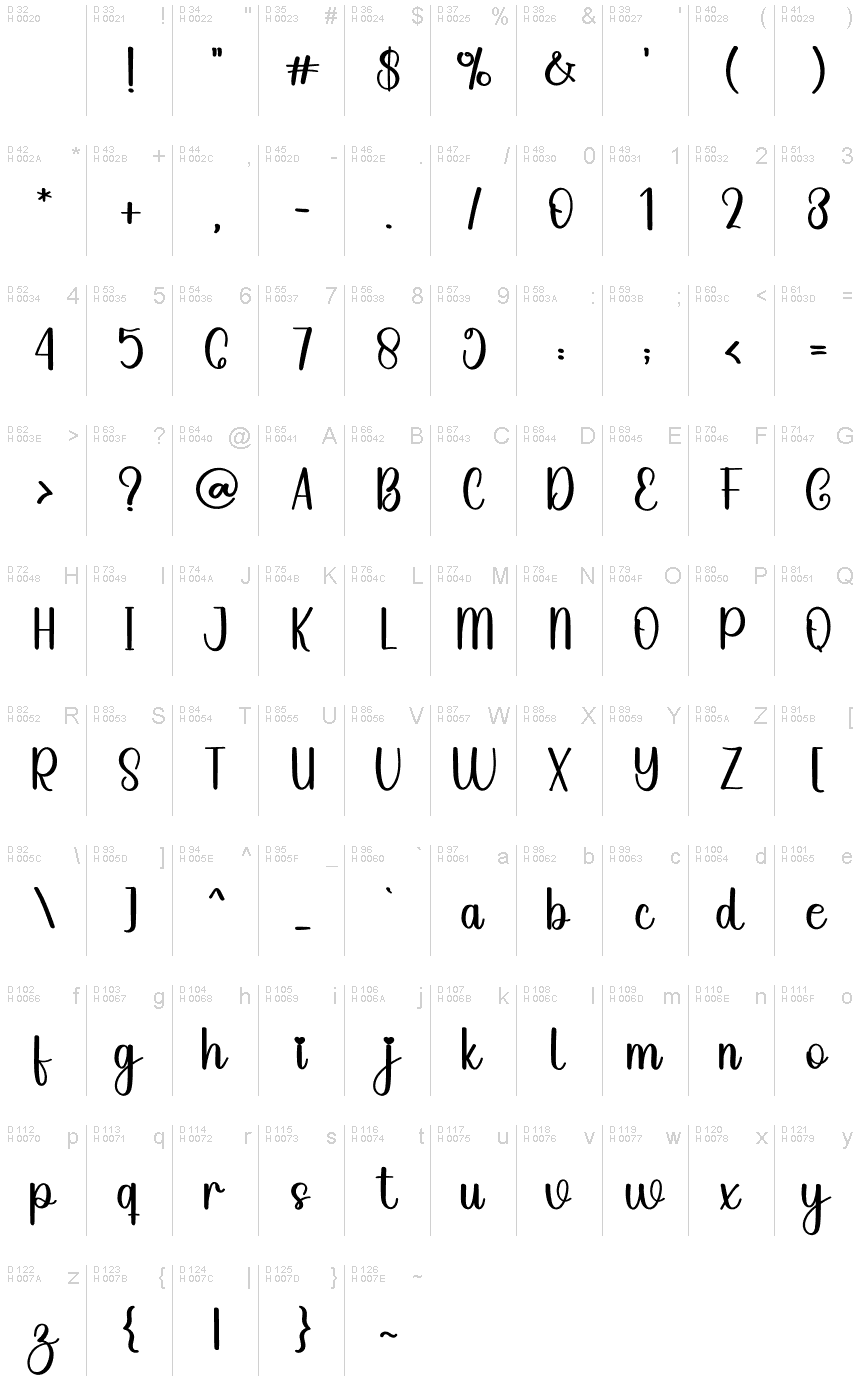
Back To School
Back to School is a lovely handwritten font designed by FreshtypeINK with narrow widths. It's perfect for crafting fun and unique projects such as scrapbooking, greeting cards, school project titles, and more!